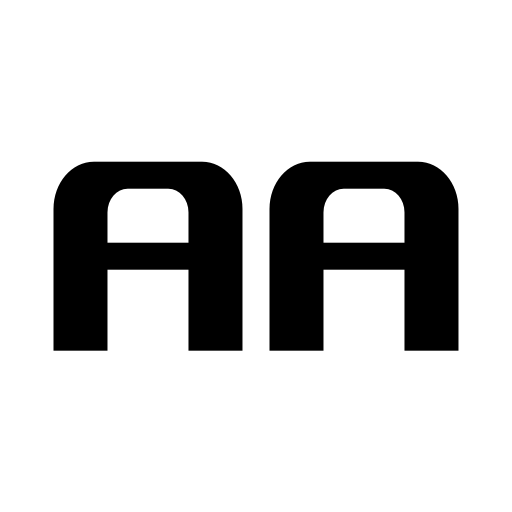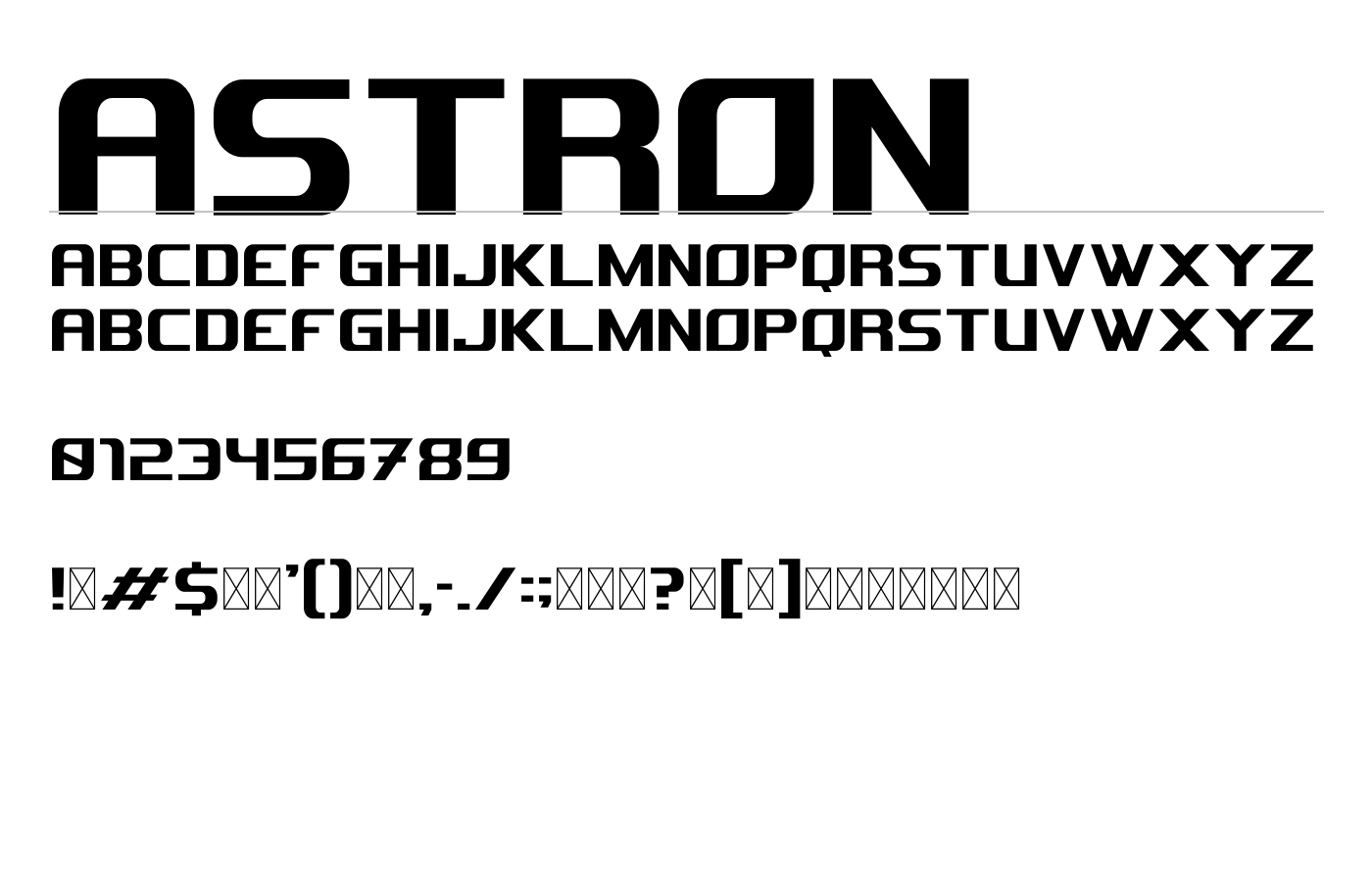
Astron is a bold, geometric sans serif font with a modern and futuristic feel, characterized by clean, uniform strokes and sharp corners. Its squared shapes and distinctive, slightly condensed letterforms make it ideal for technology, gaming, and science fiction branding or headlines, giving a strong and confident impression. The font’s straightforward style works best in logos, posters, and digital media where a sleek and contemporary aesthetic is desired.
Astron Font